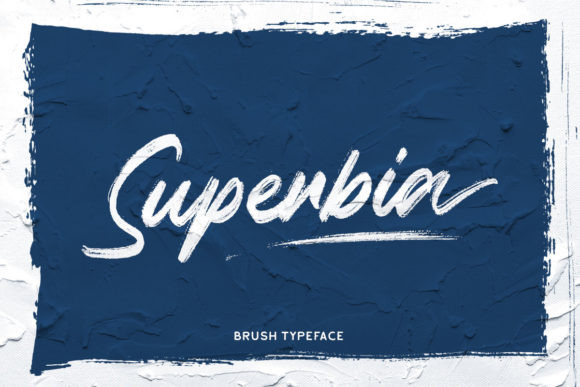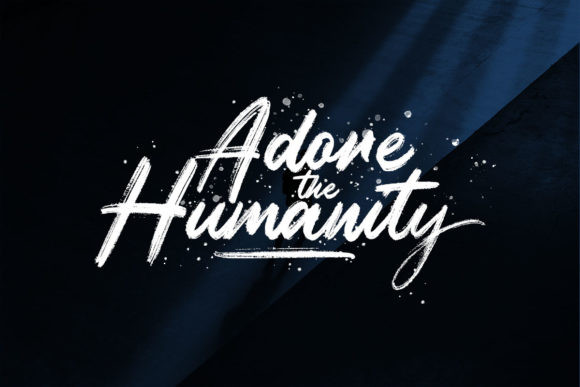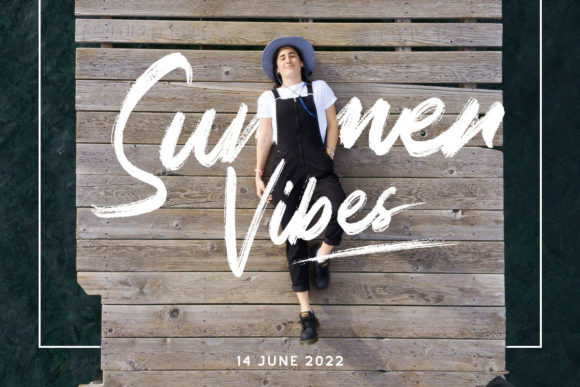
Superbia Font
Superbia is a casual, fun script font, created by using a brush pen. Use this gorgeous and unique font to bring any DIY project to life!